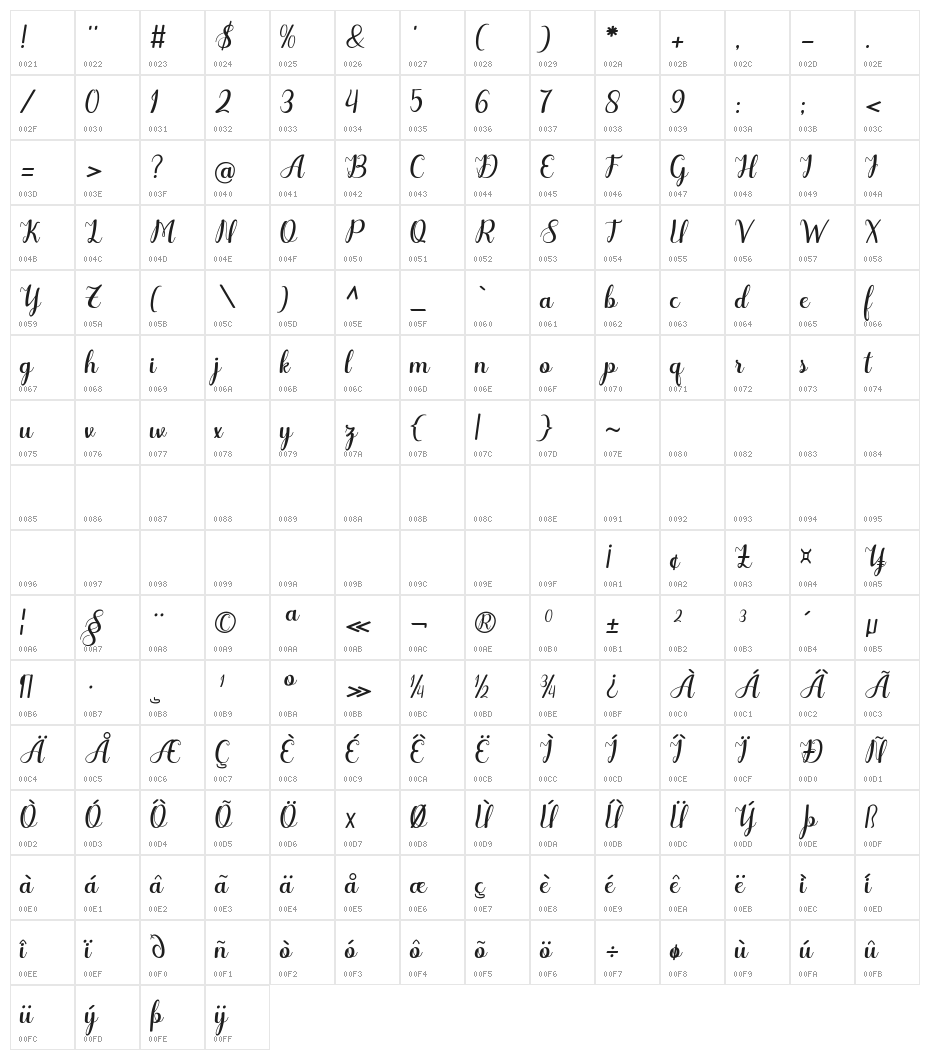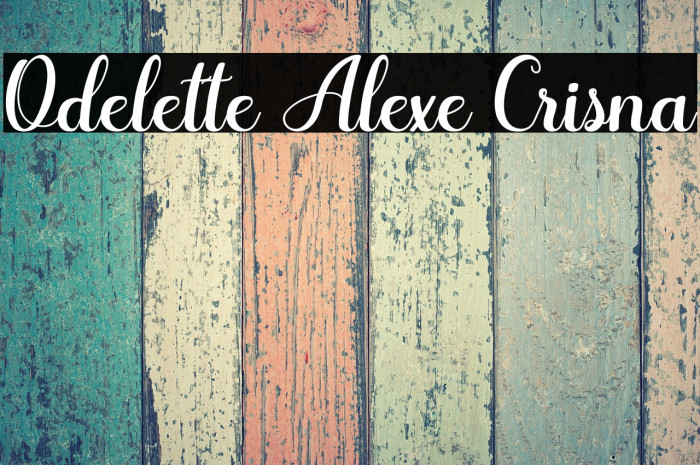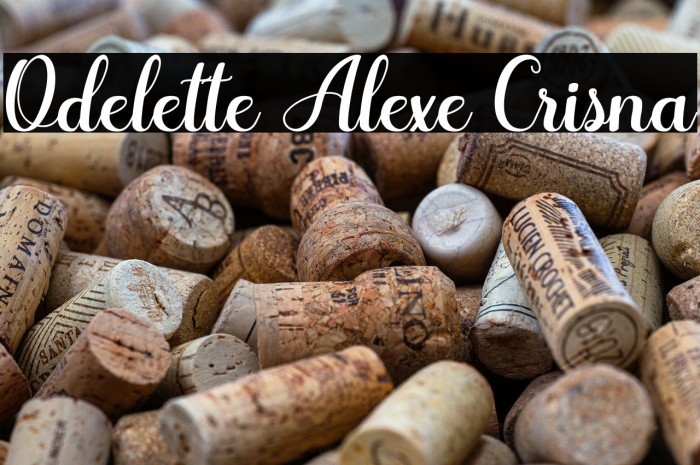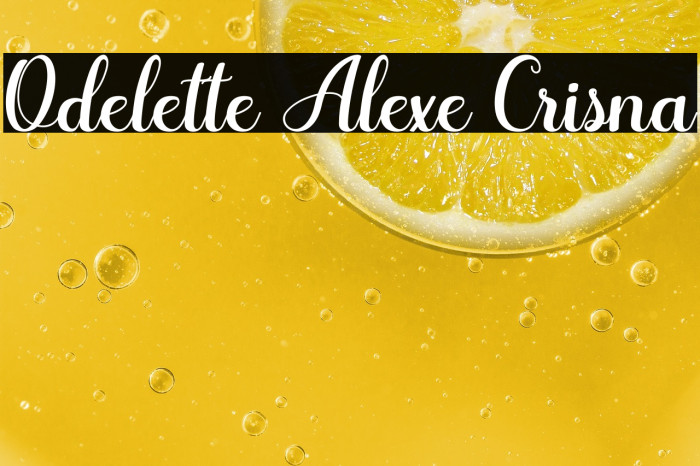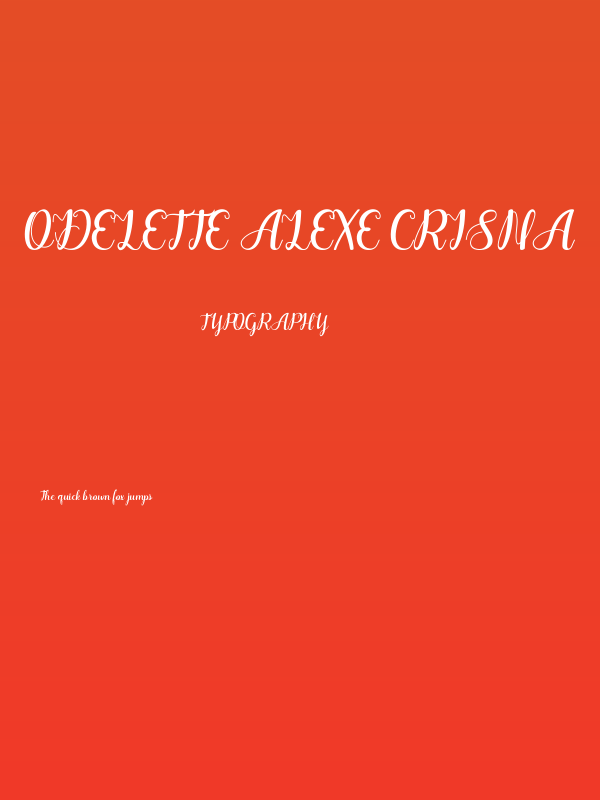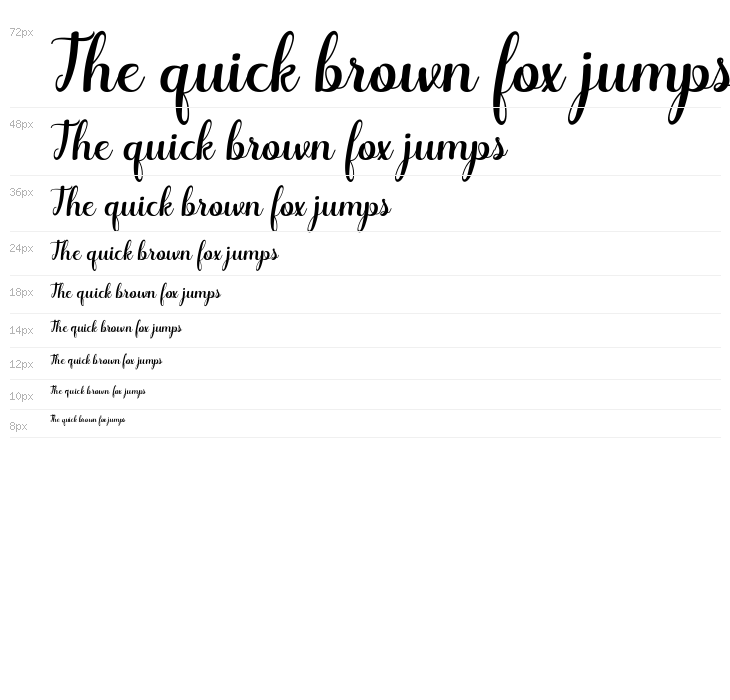
Odelette Alexe Crisna Font
Odelette Alexe Crisna Description
This elegant script font features flowing, cursive letterforms with a sophisticated and artistic flair. The uppercase letters are characterized by their sweeping, elongated strokes and graceful curves, creating a sense of movement and fluidity. The lowercase letters maintain a consistent style, with smooth connections and a slightly slanted orientation that enhances the font's dynamic appearance. The numerals and special characters are designed to complement the overall aesthetic, with similar curves and flourishes. This font exudes a sense of elegance and refinement, making it ideal for projects that require a touch of sophistication.
| Overall Style | Elegant, Sophisticated |
| Proposed Projects | Ideal for wedding invitations, elegant branding, greeting cards, and upscale packaging. |